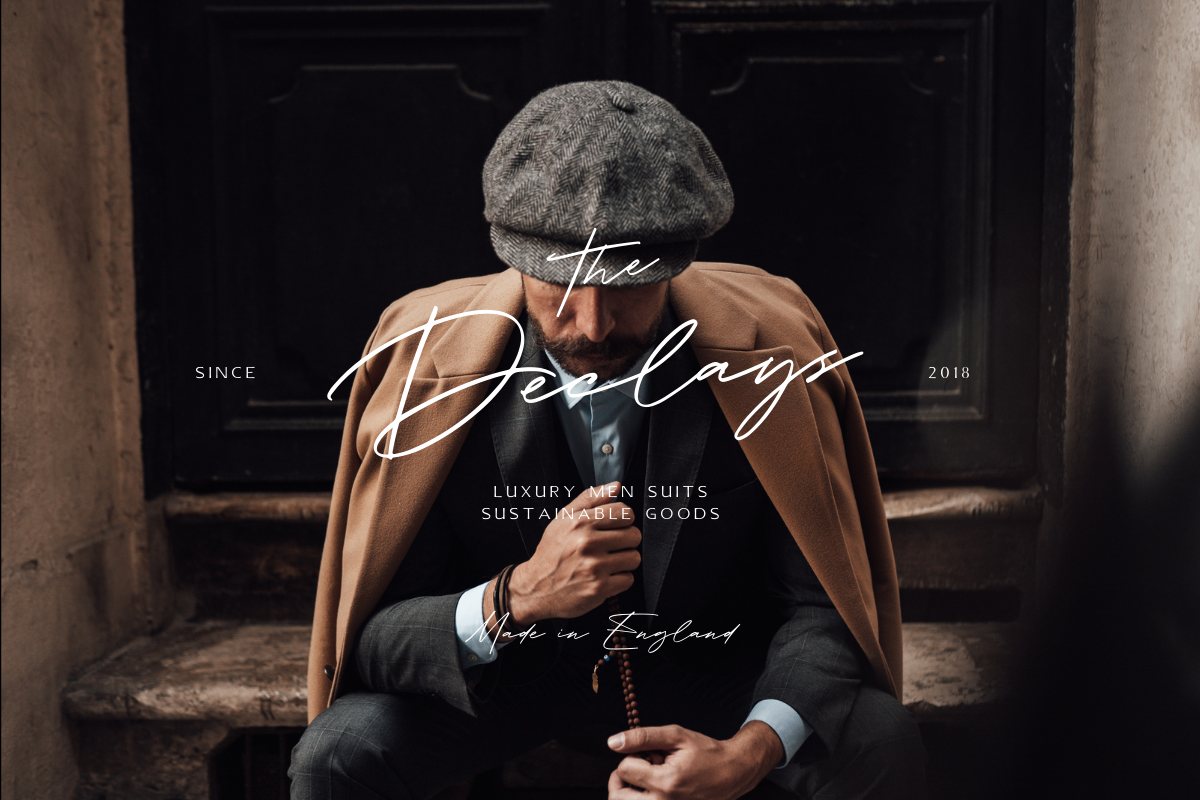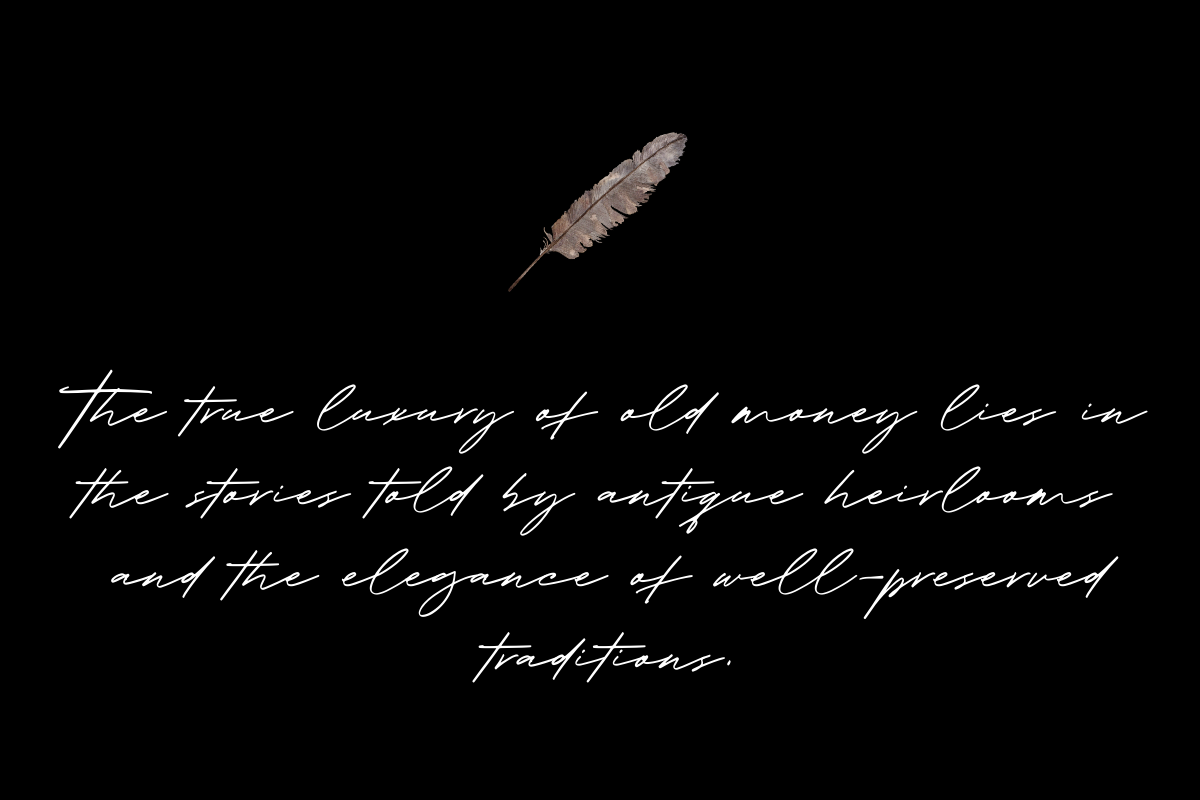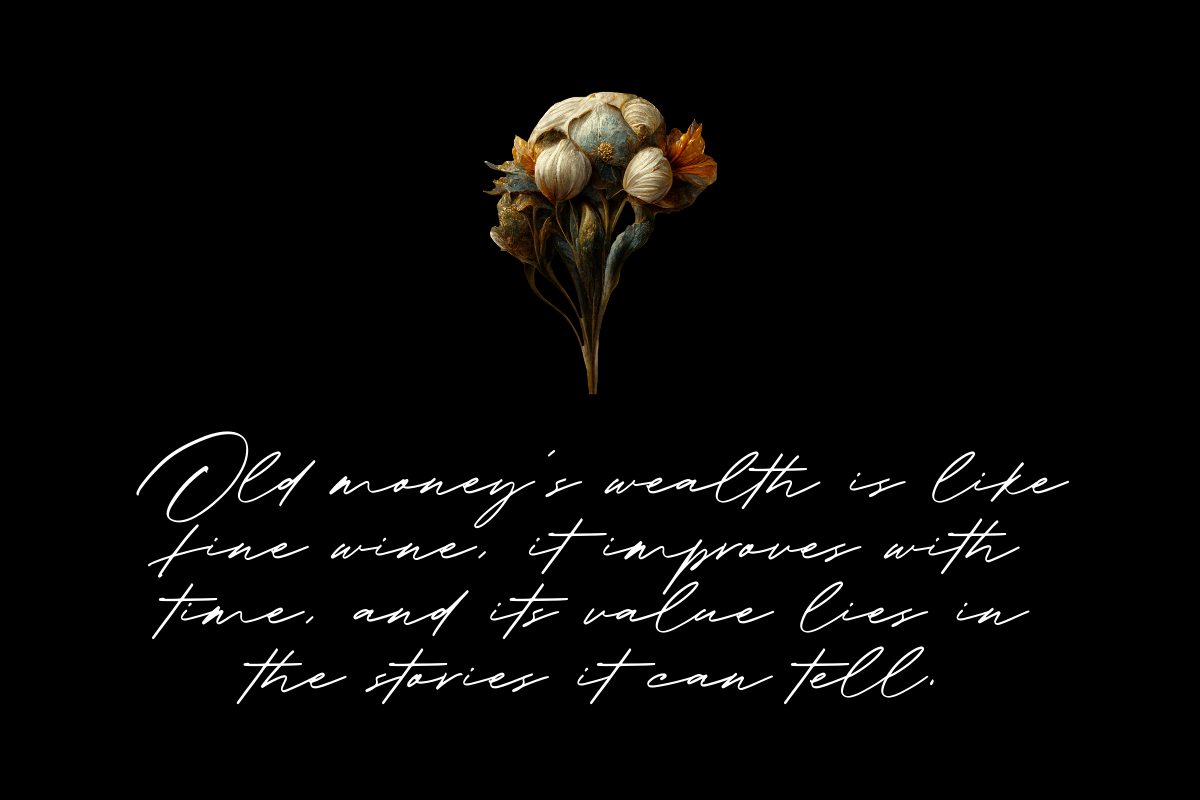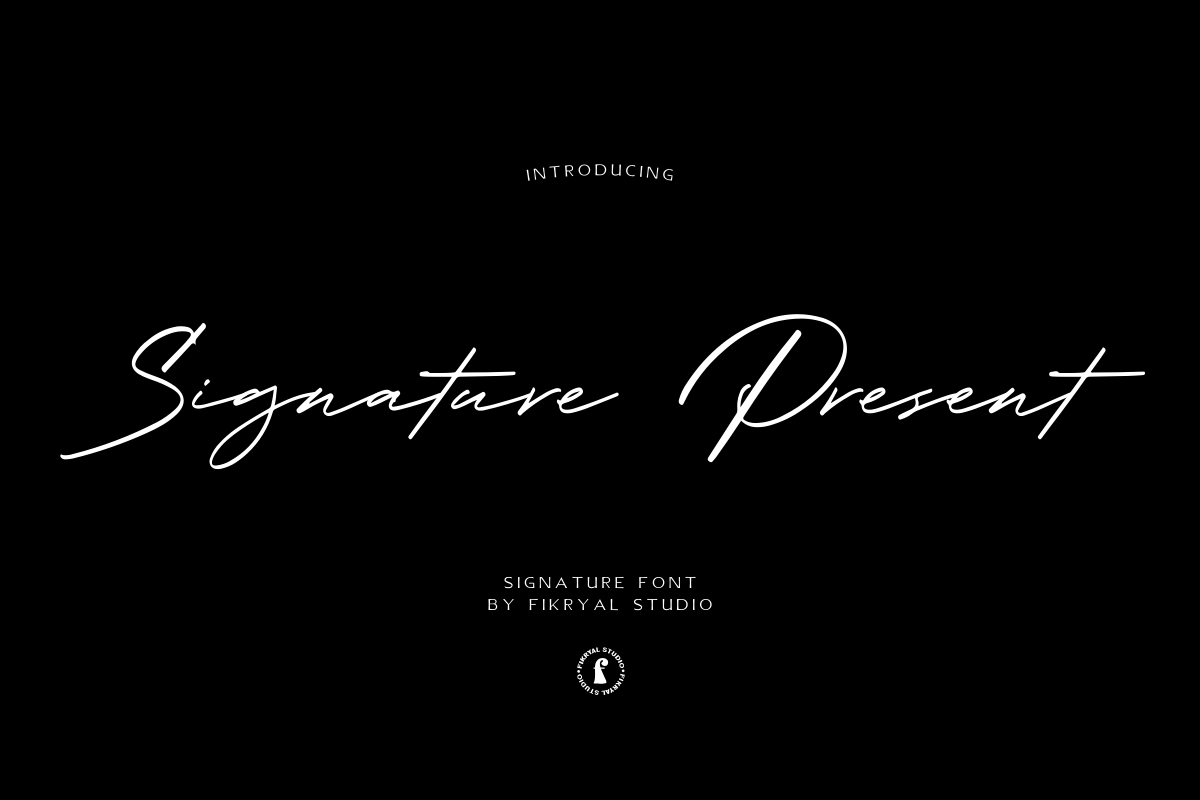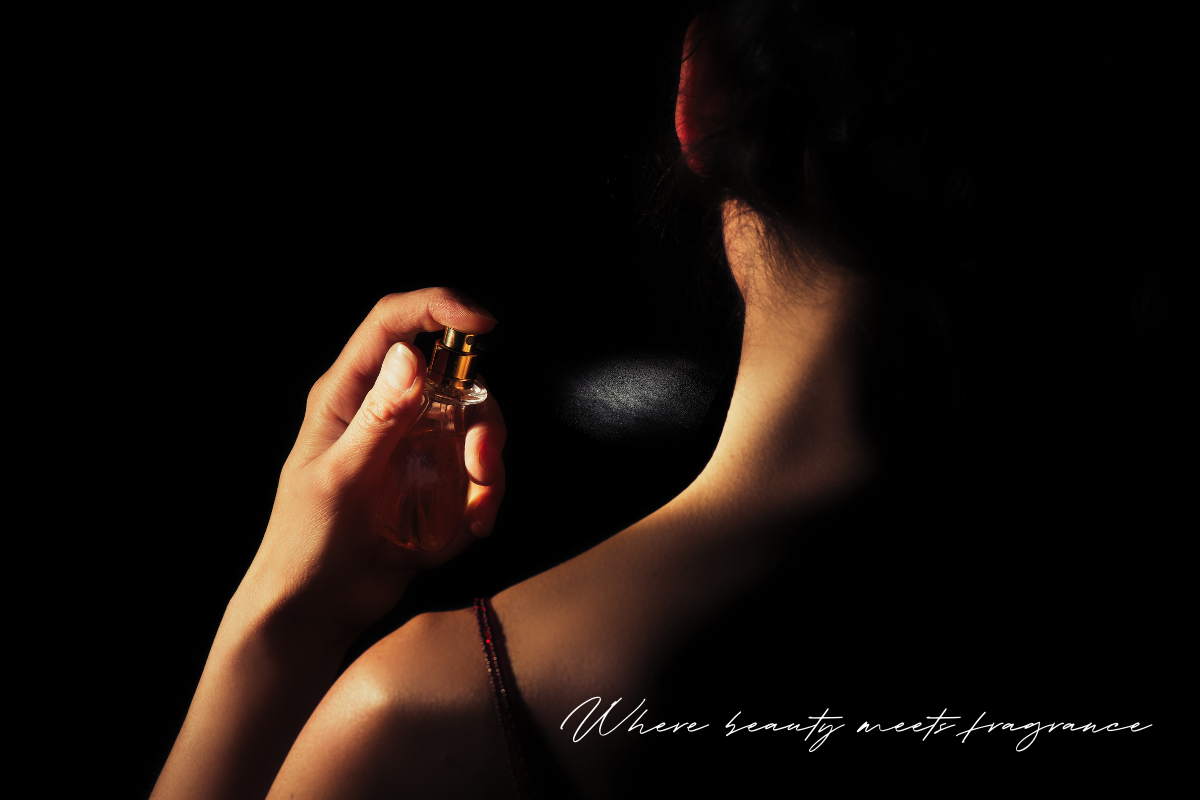
Signature Present – Signature Font
Signature Present – Signature Font is a meticulously crafted typeface that exudes elegance and sophistication. This font is designed to add a touch of personal flair and exclusivity to your projects, making it an ideal choice for various creative endeavors. With its exquisite strokes and graceful curves, Signature Present embodies the art of calligraphy, making it perfect for adding a luxurious and handwritten feel to your designs.
This font stands out with its unique, handwritten look, giving your text a personalized touch that is perfect for invitations, greeting cards, branding materials, and any other project where a distinctive and stylish script is desired. The flowing lines and precise detailing of Signature Present lend a sense of refinement and timelessness, making it a valuable addition to your font collection.
Whether you’re designing wedding invitations, business cards, or anything in between, Signature Present – Signature Font will elevate your work, making it a signature piece in itself. Its versatility and aesthetic appeal make it an excellent choice for anyone seeking a font that encapsulates sophistication and creativity in a single package.